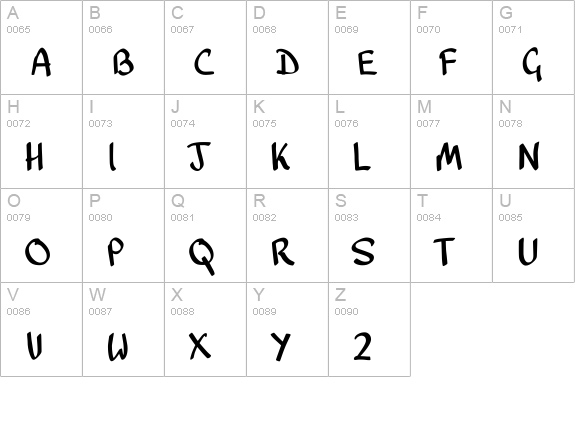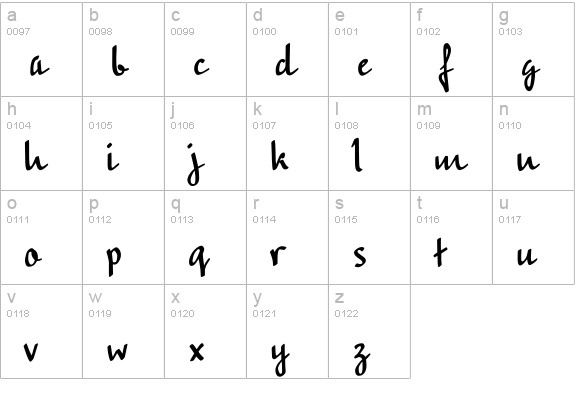
PT Script (Unreg.) Rainbow Font Details
PT Script (Unreg.) Rainbow font is a whimsical and playful typeface that adds a colorful touch to any design project. With its unique rainbow effect, this font is perfect for creating eye-catching headlines, invitations, posters, and more. The flowing script style of this font exudes a sense of elegance and creativity, making it a versatile choice for both personal and commercial use. Best of all, PT Script (Unreg.) Rainbow font is available for free download at FontsMarket.com. Whether you're a designer looking to add a pop of color to your work or simply want to experiment with a fun and vibrant font, this typeface is sure to inspire creativity and bring a touch of joy to your designs. Download PT Script (Unreg.) Rainbow font today and let your imagination run wild!